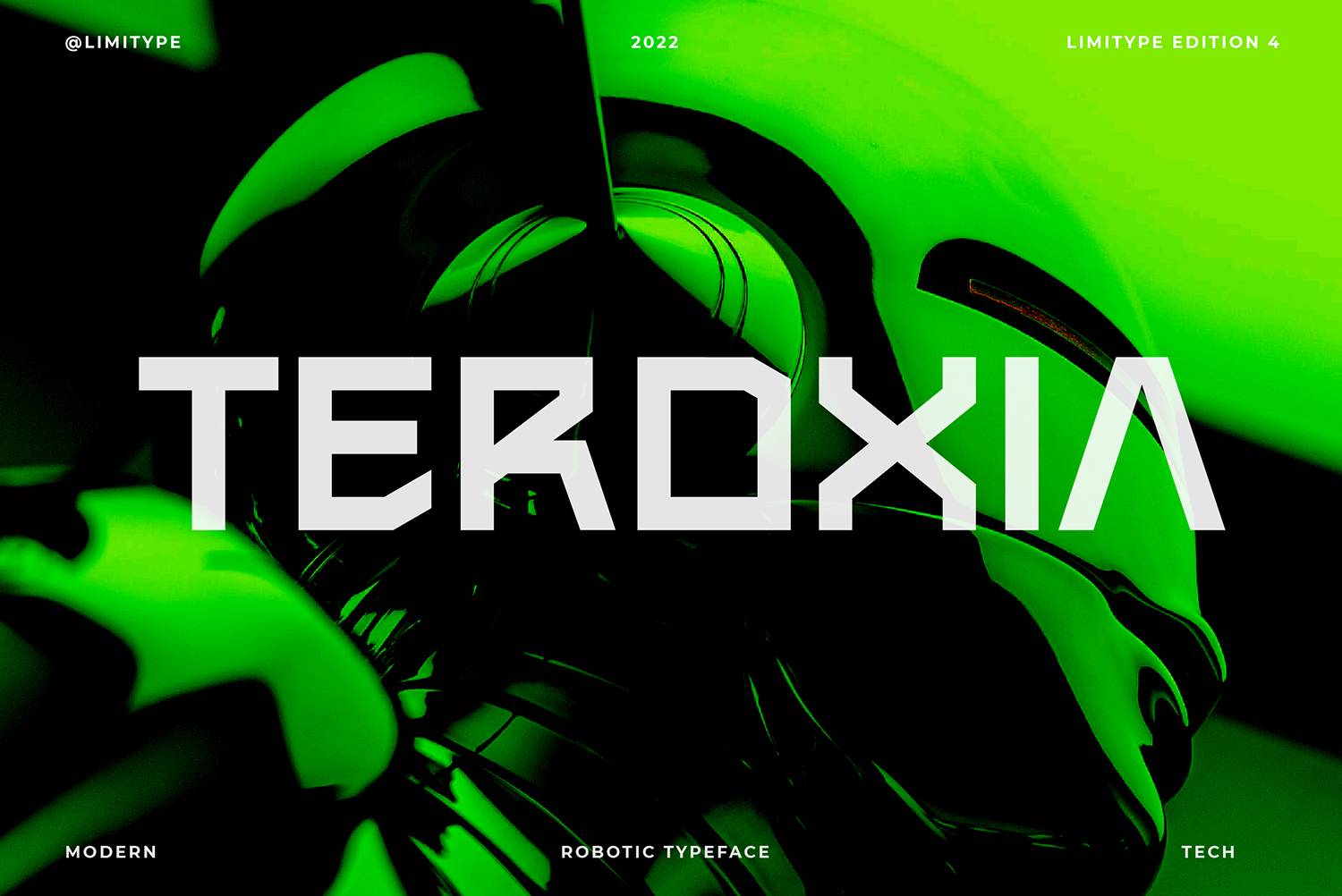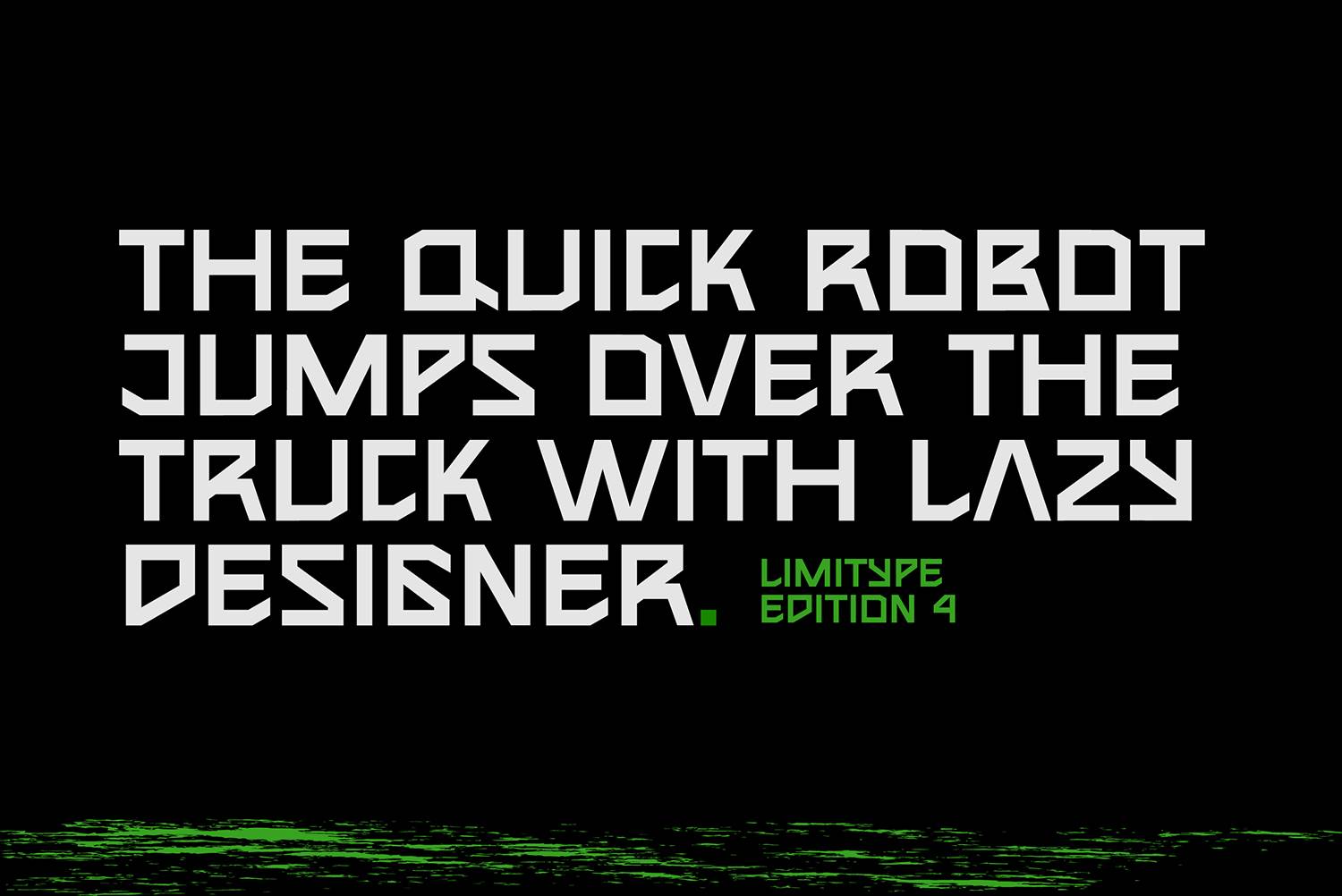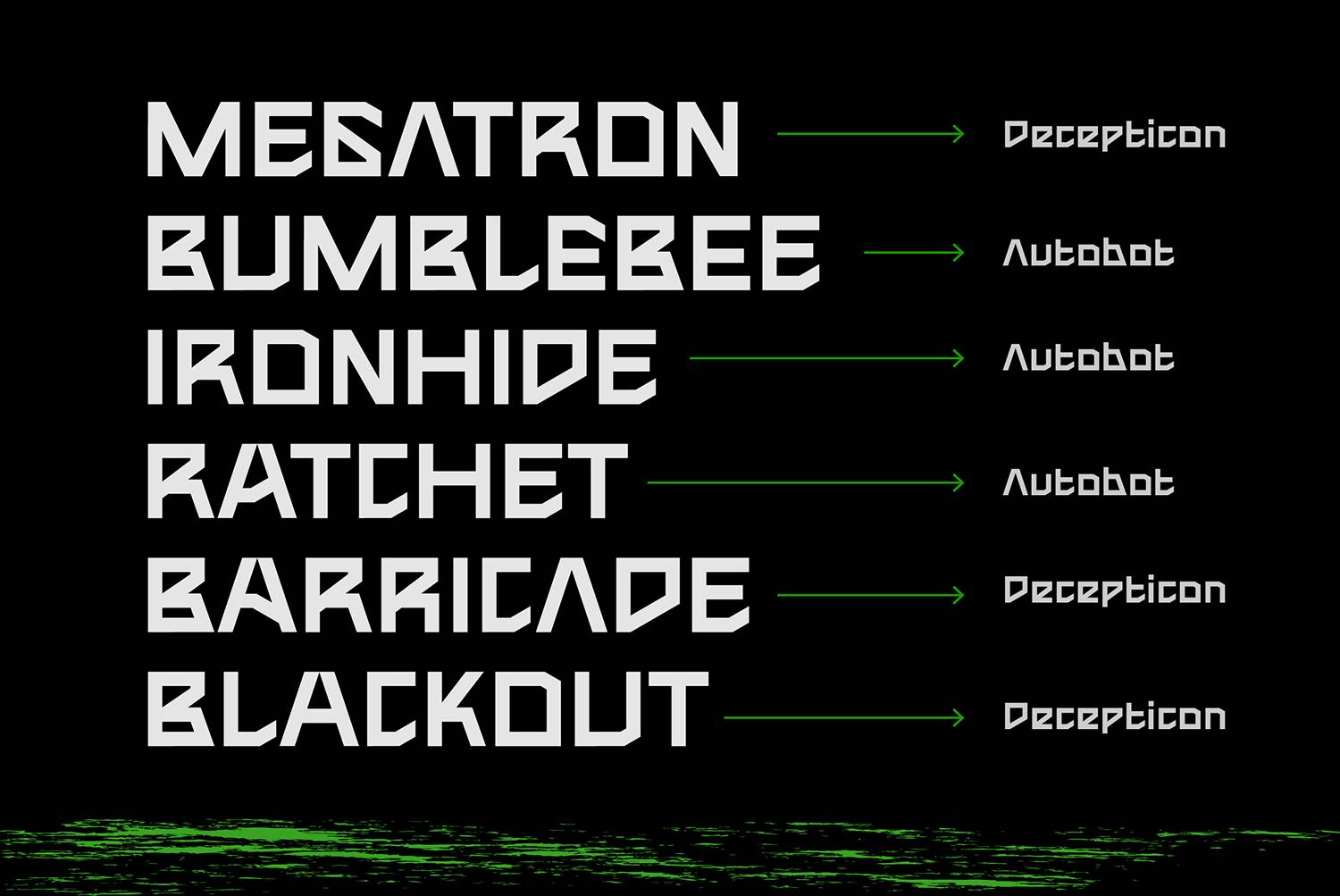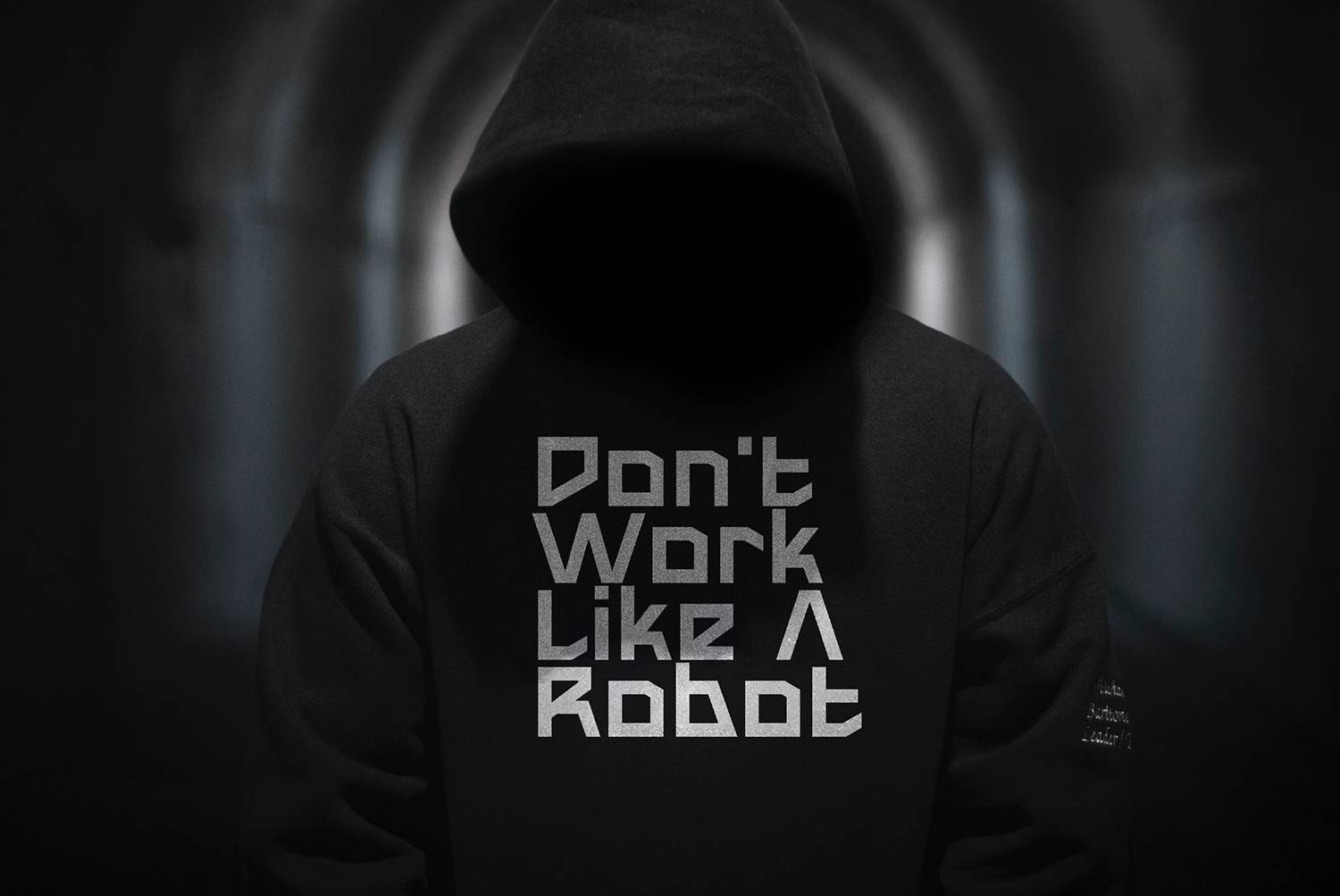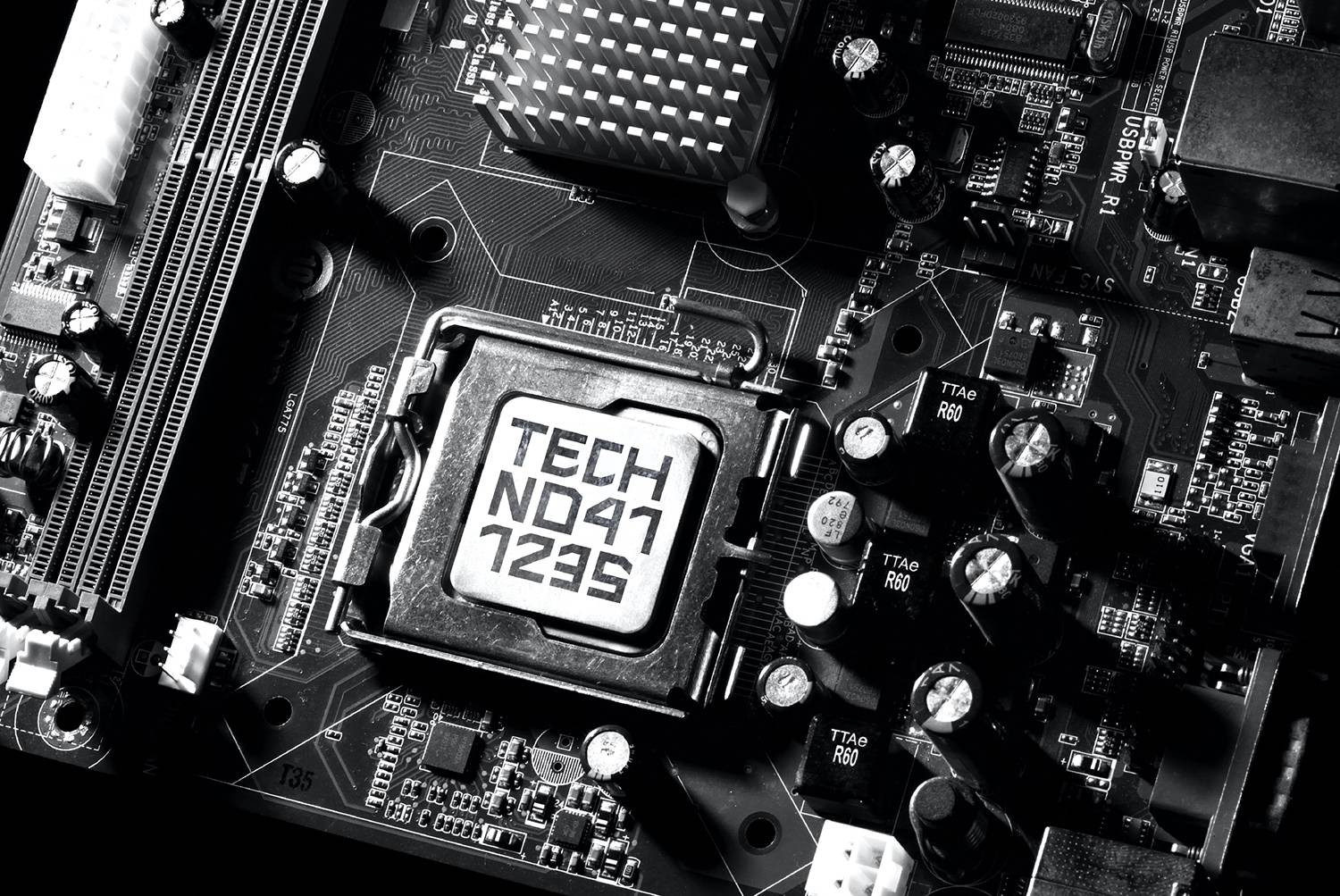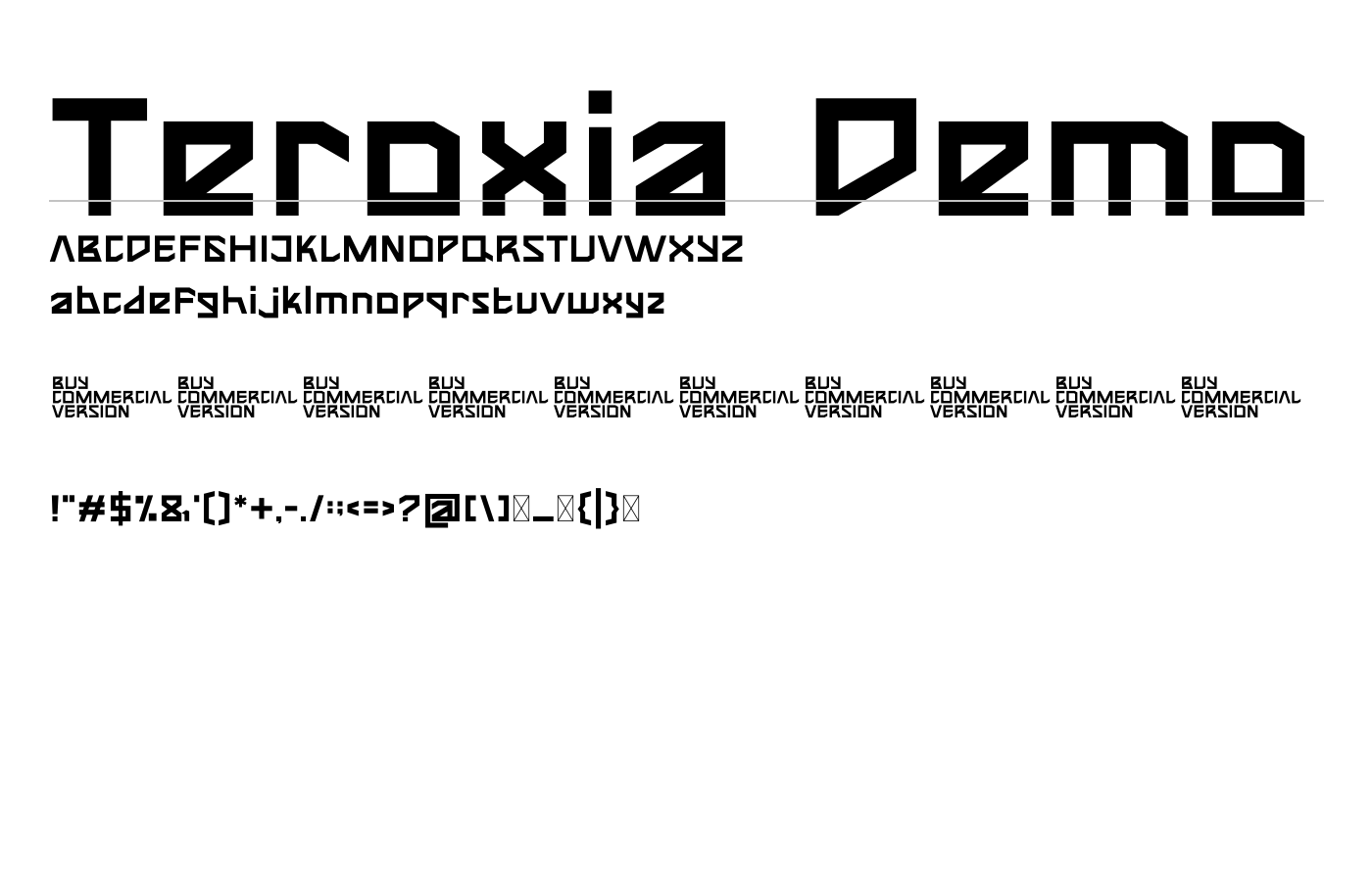
Teroxia is a bold, geometric sans serif font with a modern, tech-inspired aesthetic. Its sharp angles and condensed letterforms give it a futuristic, digital feel, making it ideal for branding, logos, and headlines that seek a strong, edgy presence. This font works best in creative projects where a distinctive, contemporary style is needed to stand out.
Teroxia Font
About Teroxia Font
| Designer | Muhammad Muammar |